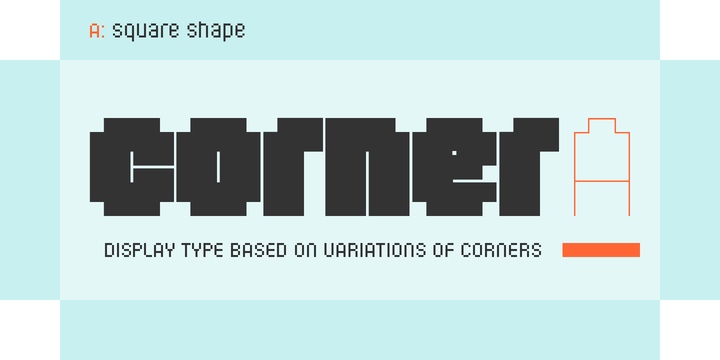
Corner A Font
Corner A Font is perfect for contemporary architecture firms, modern urban development marketing, geometric design studios, minimalist brand identities, industrial construction companies, structural engineering presentations, angular furniture designs, and cutting-edge tech startups. This sharp typeface excels in applications where geometric precision and angular sophistication are essential for creating distinctive and modern brand experiences that celebrate architectural innovation.
What makes Corner A Font truly exciting is its striking embodiment of geometric precision and angular design philosophy that captures the essence of contemporary architecture and the mathematical beauty of structural engineering. The font features sharp, angular letterforms with distinctive corner details and geometric construction that mirror the bold intersections of modern buildings and the systematic approach of parametric design. Its architectural personality and geometric character create an immediate sense of innovation and design sophistication that resonates with audiences seeking cutting-edge design solutions and contemporary aesthetic experiences. The typeface's angular appeal and modern sensibility make it perfect for brands wanting to convey innovation, precision, and connection to the evolving landscape of architectural design and geometric artistry.
The Corner A Font family includes multiple weights from Light to Bold, complemented by angular alternates and geometric-inspired decorative elements. The font offers comprehensive character sets with architectural symbols, geometric indicators, and angular styling details that enhance its contemporary aesthetic. Additional graphic elements including corner patterns, geometric motifs, architectural ornaments, and angular flourishes provide designers with complete branding tools rooted in modern design principles and geometric aesthetics.